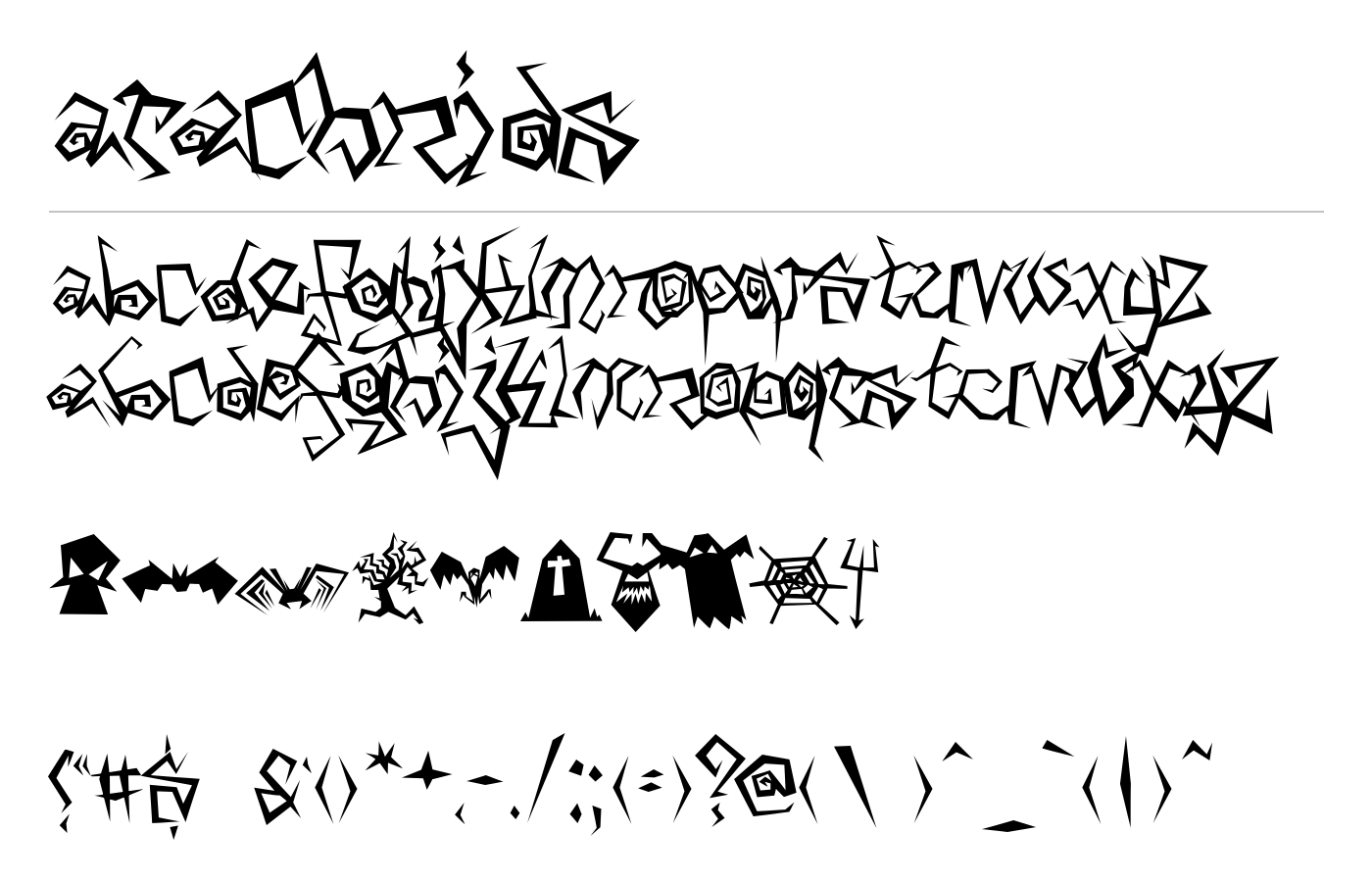
Arachnids is a highly stylized, decorative font with sharp, angular strokes and irregular, jagged letterforms that evoke a spooky, eerie atmosphere. Its uneven shapes and unique glyphs, including thematic symbols, make it perfect for Halloween-themed designs or any project seeking a bold, creepy aesthetic. This font works best for striking headlines, event posters, or themed branding where a dramatic and unsettling vibe is desired.
Arachnids Font
About Arachnids Font
| Designer | Måns Grebäck |